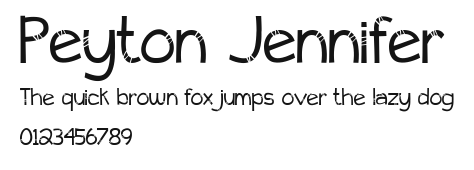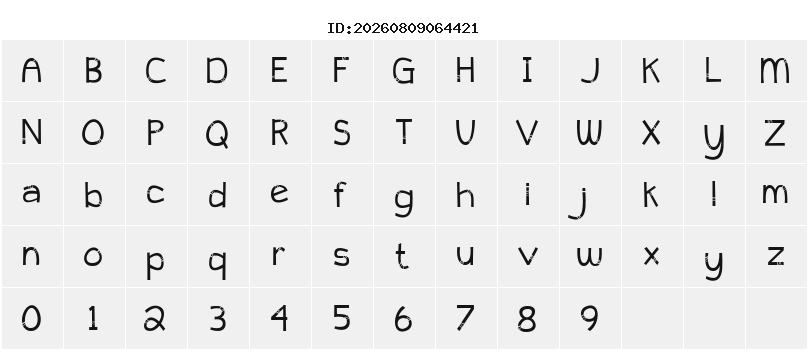
Peyton Jennifer Preview
• Font Name: Peyton Jennifer
• Font Style: Decorated
• Font ID: BrittneyMurphy: Peyton Jennifer Decorated: 2011
• Full Font Name: Peyton Jennifer Decorated
• PostScript Name: PeytonJenniferDecorated
• Designer: Brittney Murphy
About Peyton Jennifer.ttf
Peyton Jennifer.ttf is a modern, elegant sans-serif font designed for ultimate readability and visual harmony. Perfect for branding, headlines, web design, and print materials.